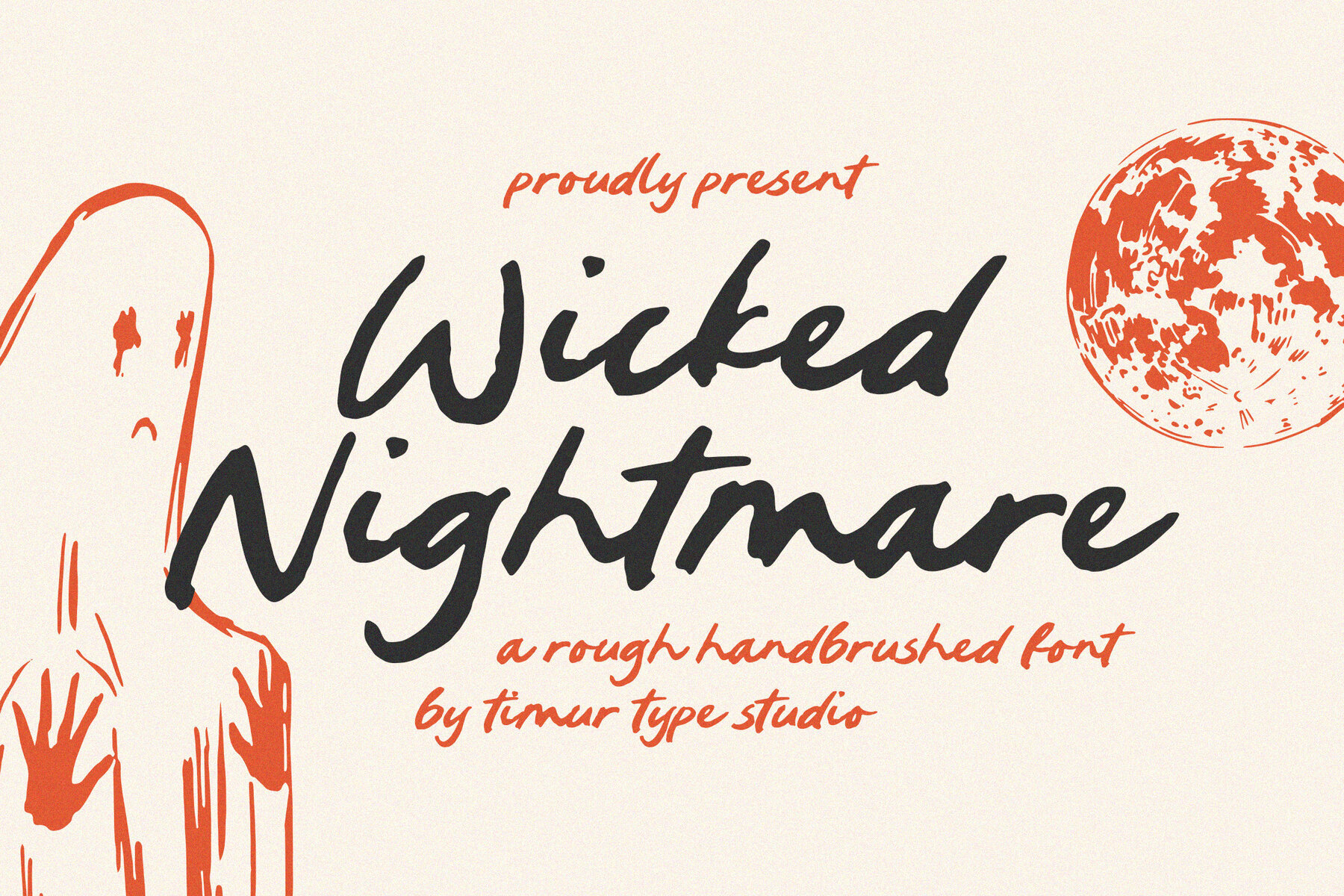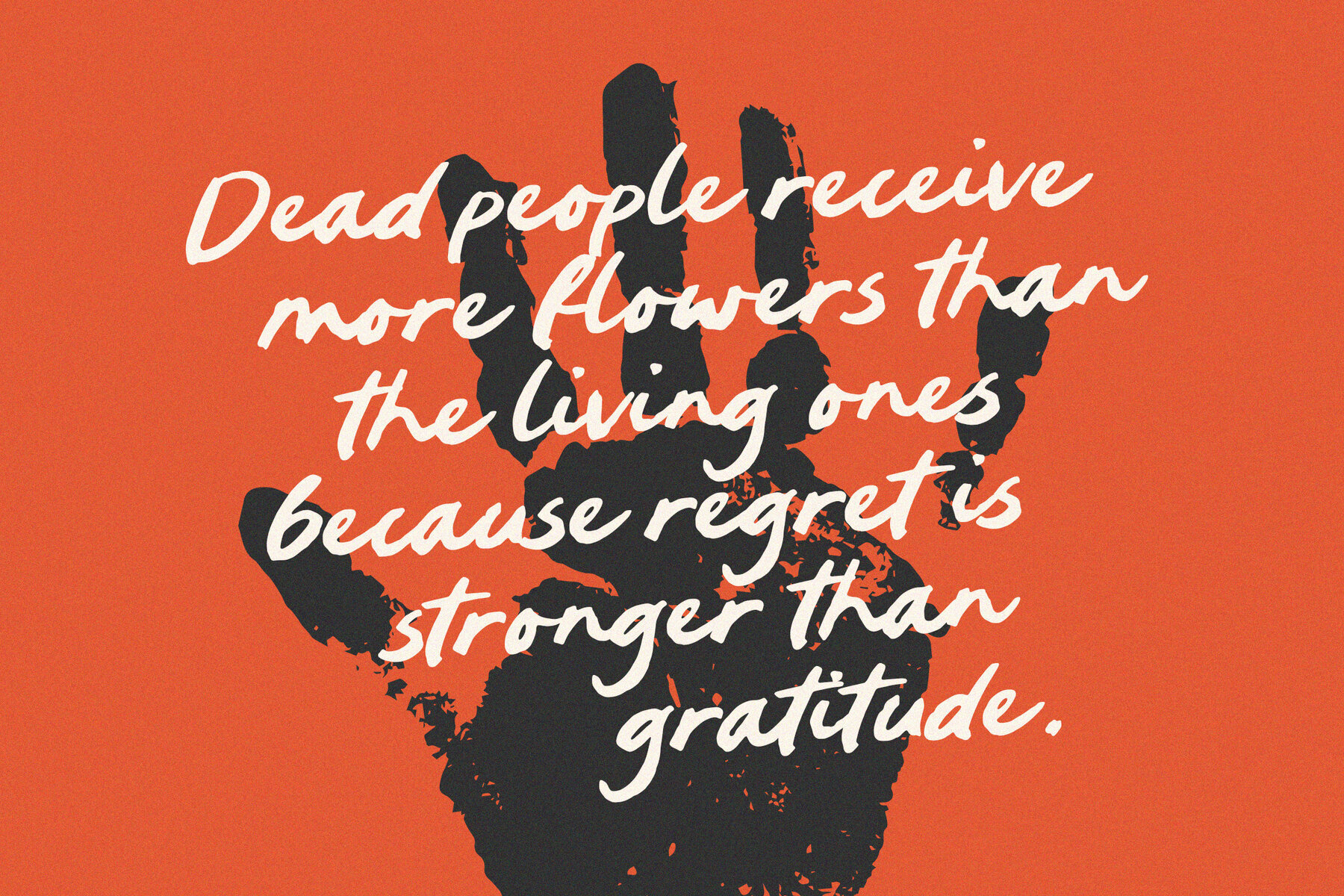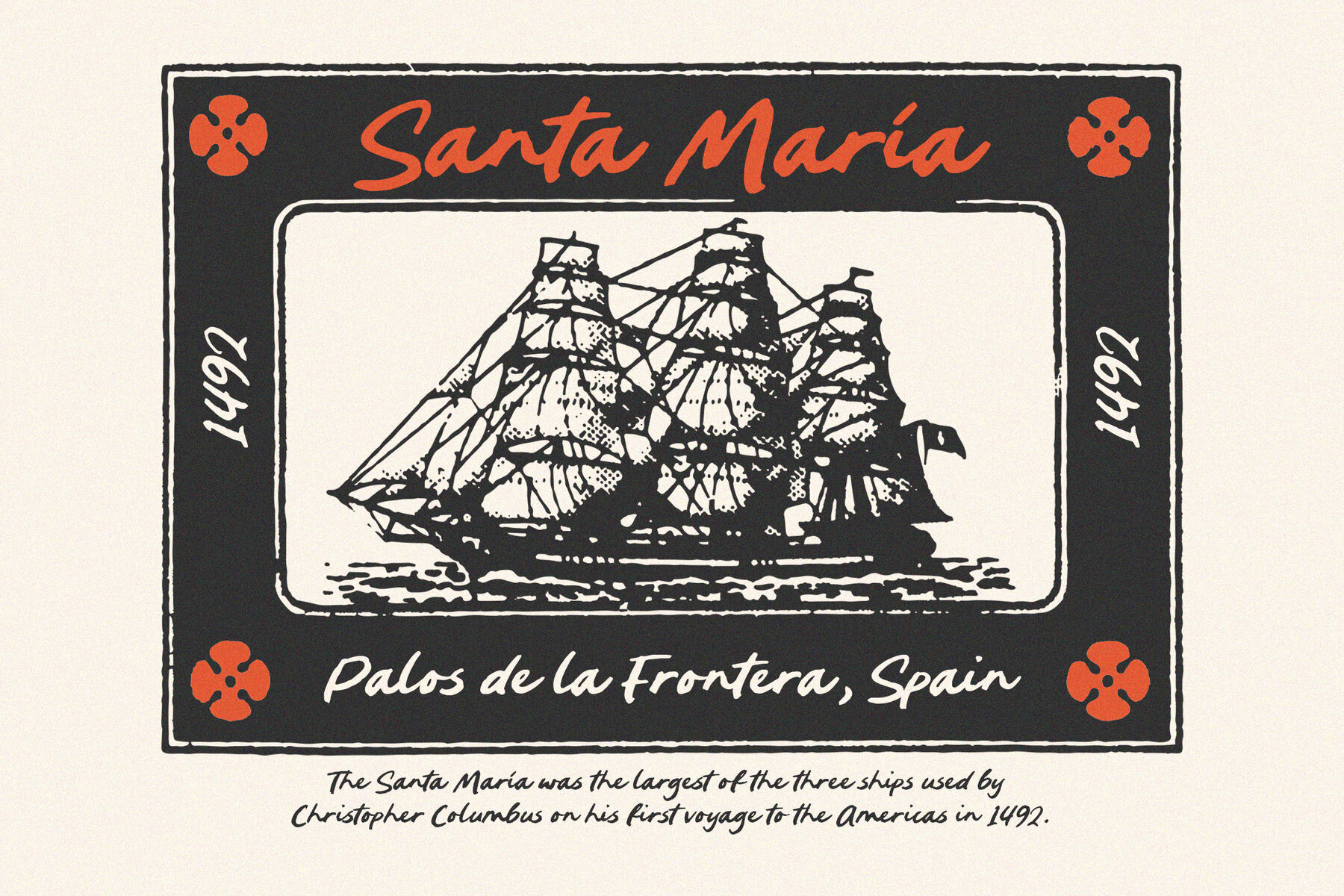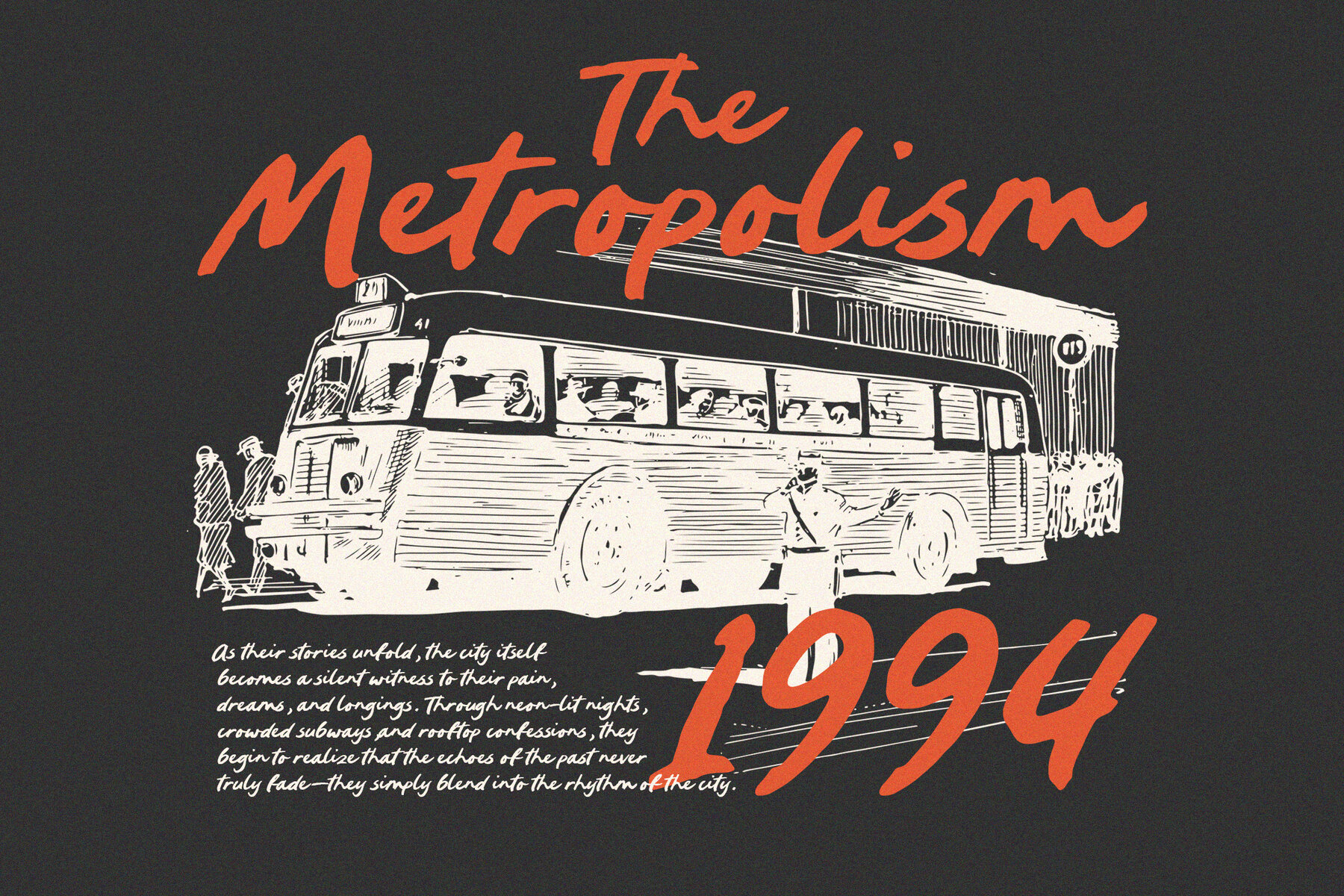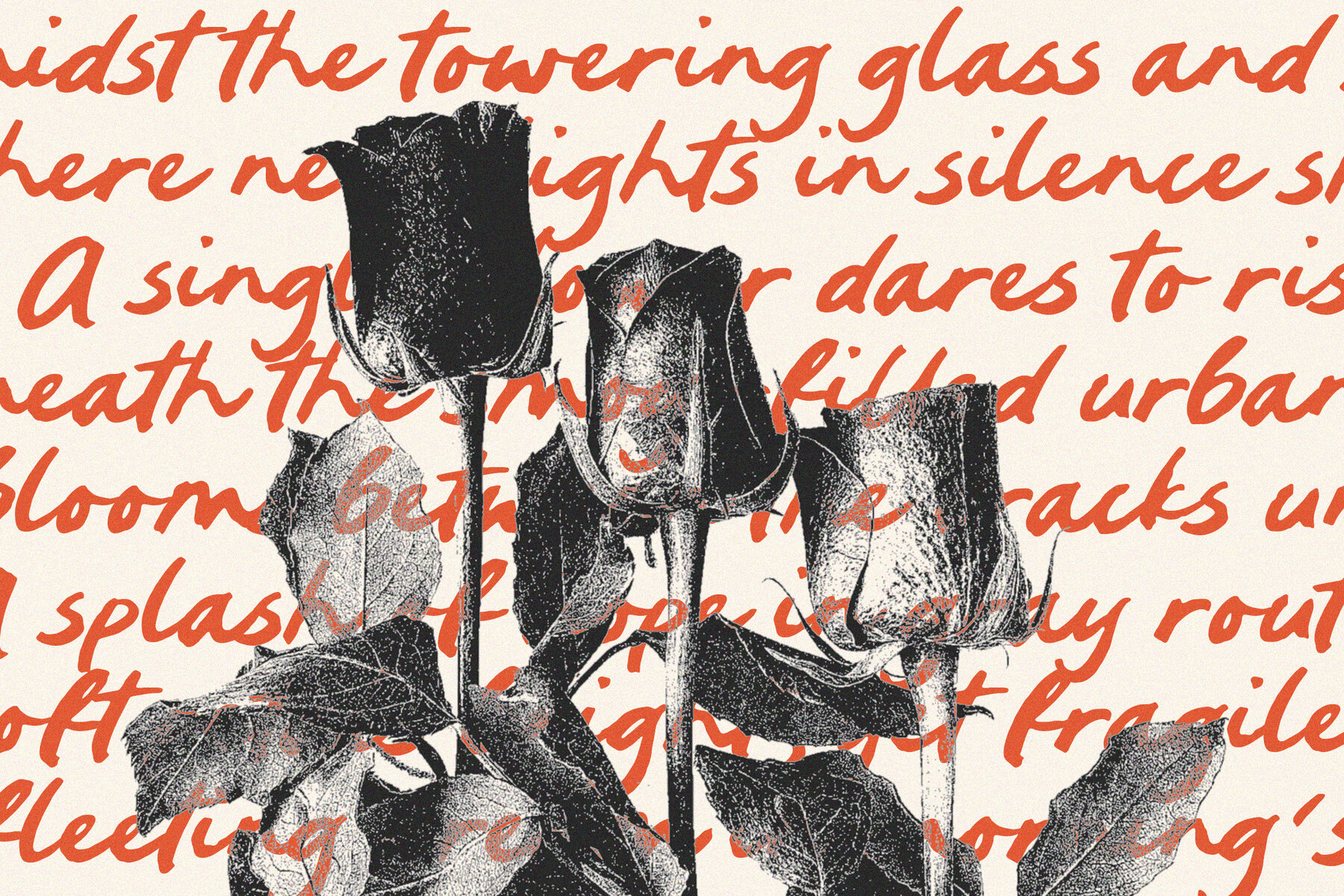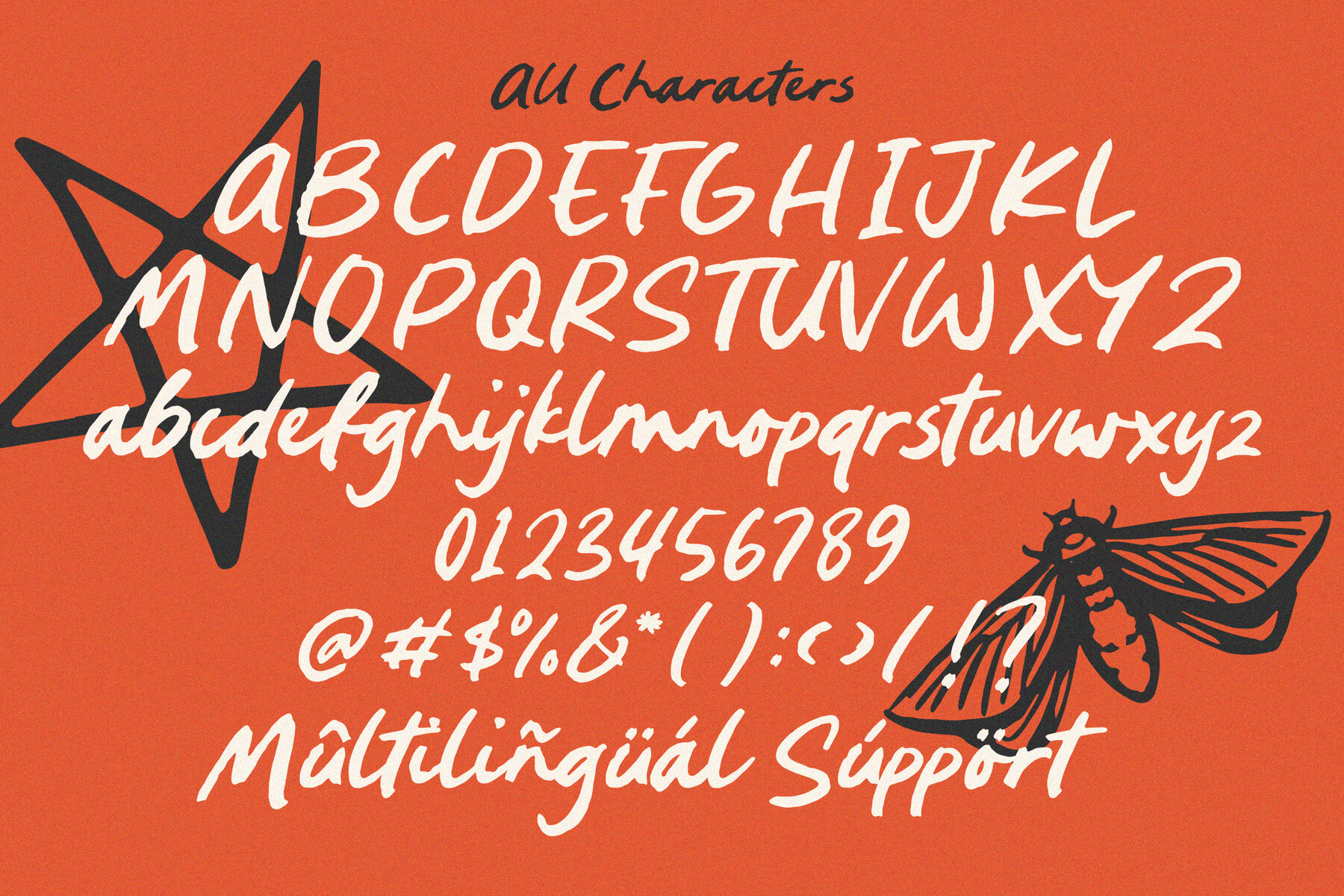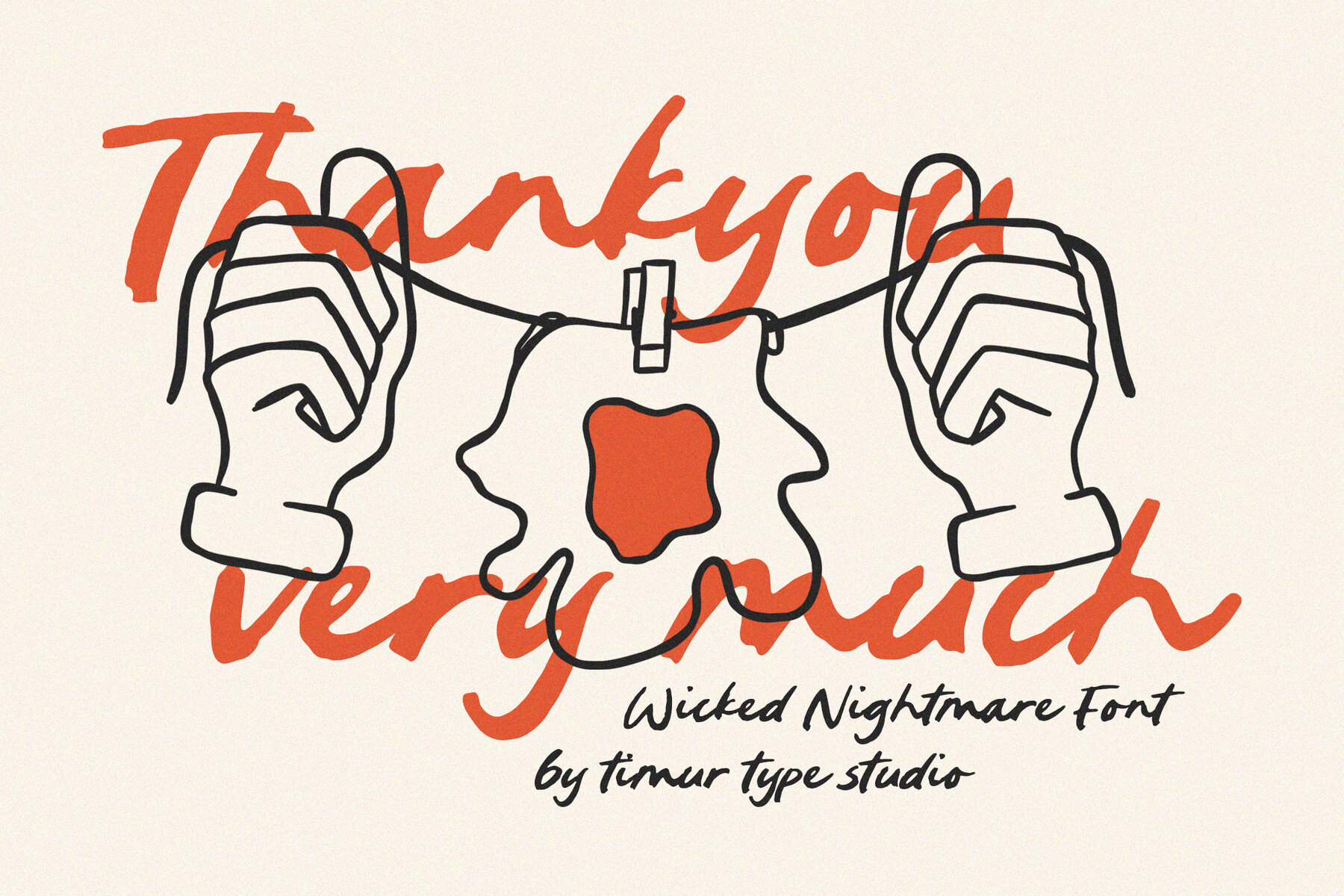
Wicked Nightmare
Wicked Nightmare is a Rough Handbrushed Font, This font is a bold, rough hand-brushed font with an intense, edgy feel. Its jagged strokes and raw texture create a chaotic yet artistic look, perfect for horror, thriller, or rebellious designs. Whether used for posters, logos, or eerie event titles, Wicked Nightmare delivers a powerful and unsettling aesthetic.